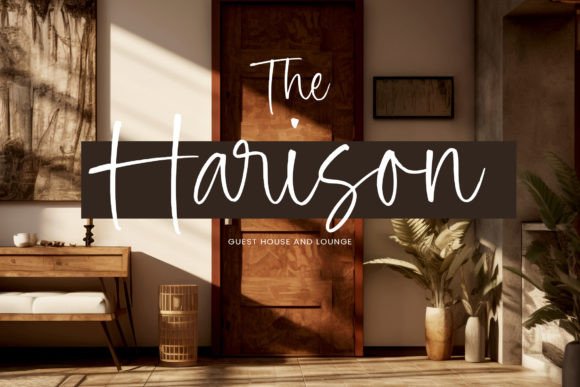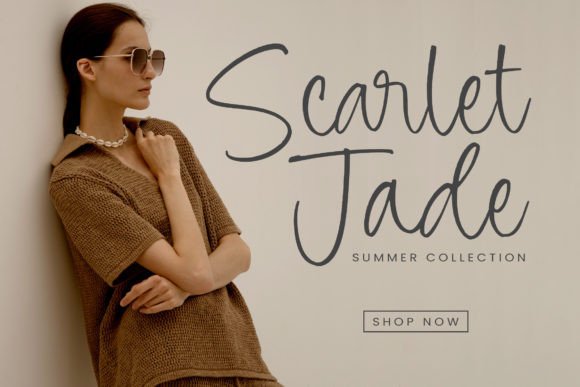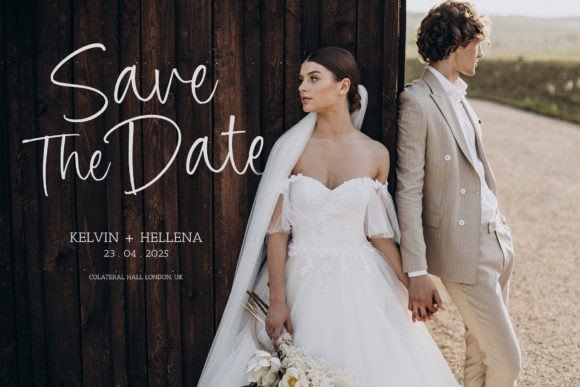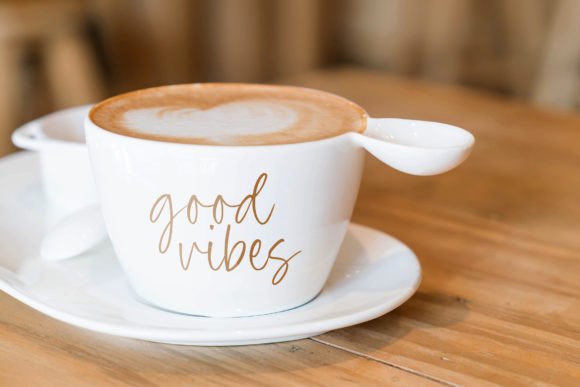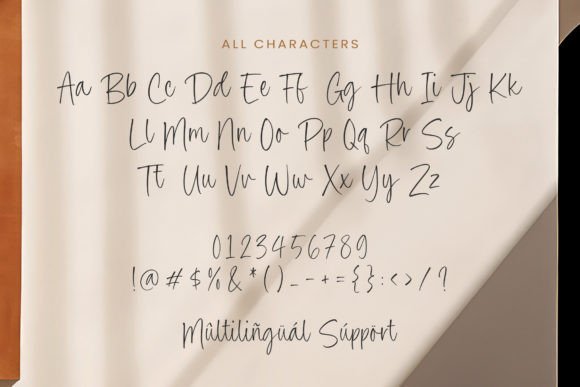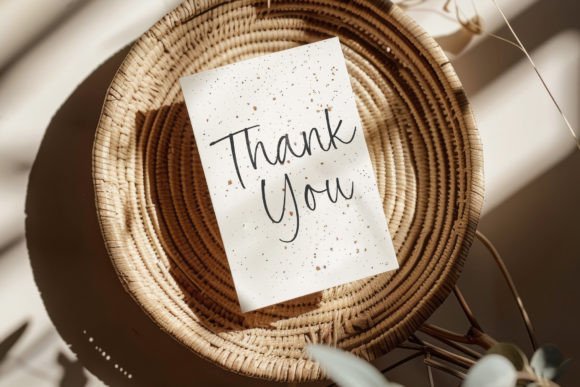
Bintang Studio Font: Elevate Your Designs with Elegance and Sophistication
Are you looking for a font that exudes elegance, sophistication, and charm? Look no further than the Bintang Studio Font. This stylish and elegant font is perfect for designers and crafters who want to add a touch of luxury to their design projects. With its graceful and flowing letterforms, Bintang Studio brings a touch of refinement and effortless aesthetic to any design.
The Characteristics of Bintang Studio Font
The Bintang Studio font is characterized by its smooth and fluid strokes, which give it a refined and elegant look. The font’s letterforms are carefully crafted to create a sense of flow and continuity, making it perfect for designs that require a touch of sophistication. Whether you’re working on invitations, branding materials, or wedding designs, the Bintang Studio font is sure to impress.
Versatility and Beauty
One of the standout features of the Bintang Studio font is its versatility. This font can be used to create a range of designs, from romantic and dreamy to classy and timeless. The font’s elegant and refined aesthetic makes it perfect for designs that require a touch of luxury and sophistication. Whether you’re aiming for a vintage, rustic, or modern look, the Bintang Studio font can help you achieve your design goals.
The Bintang Studio font is perfect for designers and crafters who want to elevate their designs with a touch of elegance and sophistication. With its beautiful and refined letterforms, this font is sure to add a touch of luxury to any design project. Whether you’re working on a branding project, creating wedding invitations, or designing social media graphics, the Bintang Studio font is a great choice.
Tips for Using Bintang Studio Font
Here are some tips for using the Bintang Studio font in your design projects:
- Use the Bintang Studio font for headings and titles to add a touch of elegance and sophistication.
- Pair the Bintang Studio font with a sans-serif font for a modern and stylish look.
- Use the Bintang Studio font for invitations, branding materials, and wedding designs to create a luxurious and refined look.
Why Choose Bintang Studio Font?
There are many reasons why you should choose the Bintang Studio font for your design projects. Here are a few:
- The Bintang Studio font is a unique and stylish choice that will set your designs apart from the rest.
- The font’s elegant and refined aesthetic makes it perfect for designs that require a touch of luxury and sophistication.
- The Bintang Studio font is versatile and can be used for a range of designs, from romantic and dreamy to classy and timeless.
In conclusion, the Bintang Studio font is a stylish and elegant choice for designers and crafters who want to add a touch of luxury to their design projects. With its smooth and fluid strokes, refined letterforms, and versatile aesthetic, this font is perfect for designs that require a touch of sophistication and elegance. Whether you’re working on invitations, branding materials, or wedding designs, the Bintang Studio font is sure to impress.